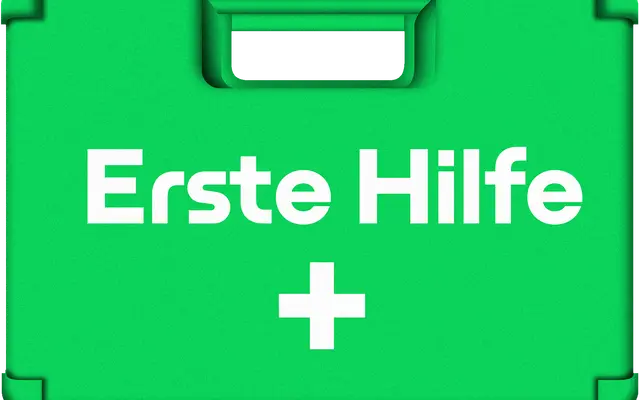
First Aid Kit
Thirteen standalone mini typefaces packaged as a single family, each weight carrying its own distinct letterform personality rather than forming a coherent weight progression.
Rather than a conventional weight range, First Aid Kit offers 13 discrete styles labelled A through M, each conceived as an independent mini typeface. The approach grew out of the designer's interest in exploring individual ideas to completion without the constraint of interpolating cleanly between Thin and Black. The result suits branding and poster work where variety and character take priority over systematic consistency.
A collection of 13 standalone mini typefaces, each with distinct letterform character, designed primarily for expressive branding and poster work rather than text setting. The eclectic, standalone-weight structure places it firmly in the display category.